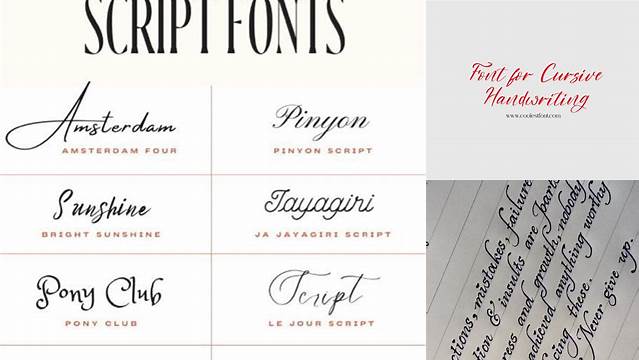
Best Cursive Fonts: Elegant Handwriting Styles
Are you looking for the best cursive handwriting fonts to add a touch of elegance and personality to your projects? Well, you've come to the right place! In this comprehensive guide, we'll explore a wide range of cursive fonts that mimic the beauty of human handwriting. Whether you're designing wedding invitations, creating logos, or simply want to add a personal touch to your documents, the right cursive font can make all the difference. Guys, let's dive into the world of cursive fonts and discover some amazing options!
What Makes a Great Cursive Handwriting Font?
Before we jump into specific font recommendations, let's talk about what makes a cursive font truly great. It's not just about looking pretty; a good cursive font needs to be legible, versatile, and evoke the desired feeling. When you're looking for the best cursive handwriting fonts, consider the following factors:
- Legibility: This is paramount. A beautiful font is useless if no one can read it! Look for fonts with clear letterforms and consistent spacing. Avoid fonts that are overly ornate or have too many flourishes, as these can be difficult to decipher.
- Flow and Rhythm: Cursive handwriting is characterized by its smooth, flowing strokes. The best fonts capture this rhythm, creating a sense of natural movement across the page. The connections between letters should be seamless and organic, not clunky or forced.
- Personality: Different cursive fonts have different personalities. Some are elegant and formal, perfect for wedding invitations or high-end branding. Others are playful and casual, ideal for children's books or informal correspondence. Consider the message you want to convey and choose a font that matches.
- Versatility: A versatile font can be used in a variety of contexts. Look for fonts that come in different weights (e.g., light, regular, bold) and styles (e.g., italic, condensed). This will give you more flexibility in your designs.
- Character Set: Does the font include all the characters you need, such as accented letters, punctuation marks, and symbols? A complete character set is essential for professional use.
Finding the perfect best cursive handwriting fonts involves balancing these factors. It’s about identifying a font that not only looks stunning but also effectively communicates your message while fitting your project's aesthetic and practical requirements. Remember, the goal is to enhance readability and add a personal touch without sacrificing clarity.
Top Cursive Handwriting Fonts
Okay, guys, let's get to the fun part – exploring some fantastic cursive handwriting fonts! I've curated a list of some of the best cursive handwriting fonts across different styles and use cases. Here are some top contenders, with details on what makes each one special:
1. Pacifico
Pacifico is a friendly and approachable cursive font that's perfect for adding a touch of warmth to your designs. Designed by Vernon Adams, Pacifico is inspired by the 1950s American surf culture, giving it a retro yet modern feel. It's highly legible and works well in a variety of applications, from logos and headlines to body text. Pacifico features rounded letterforms and a consistent slant, creating a sense of movement and rhythm. This makes it a best cursive handwriting fonts choice for projects that need a casual, inviting vibe. This font has a strong personality that resonates well with audiences seeking a blend of nostalgia and contemporary design.
The rounded shapes and consistent flow make Pacifico exceptionally readable, even in smaller sizes. This legibility makes it a versatile choice for various media, including web design, print materials, and social media graphics. Furthermore, Pacifico’s distinct style helps brands create a memorable visual identity. Its character set includes a full range of glyphs, ensuring compatibility across different languages and design platforms. Whether you're working on a blog header, a promotional poster, or a website banner, Pacifico can elevate your design with its charming and approachable aesthetics.
2. Brush Script MT
Brush Script MT is a classic cursive font that's been around for decades, and for good reason! It's a bold and expressive font that mimics the look of brushstrokes, giving it a hand-lettered feel. Designed by Edwin W. Shaar in 1942, Brush Script MT is characterized by its dramatic strokes and swashes. It’s an excellent choice for headlines, posters, and anything that needs a touch of vintage flair. Brush Script MT remains a top pick among best cursive handwriting fonts due to its timeless appeal and dynamic presence. Its unique character shapes and bold strokes instantly capture attention, making it perfect for titles and headings that need to stand out.
The font’s expressive nature makes it particularly effective in designs where a personal touch is desired. It conveys a sense of authenticity and craftsmanship, ideal for branding materials or invitations. However, due to its bold nature, Brush Script MT is best used sparingly to avoid overwhelming the design. When paired thoughtfully with simpler fonts, it can create a striking visual contrast and add a sophisticated edge. This classic typeface continues to prove its worth as a versatile and reliable option for designers looking to infuse their work with character and style.
So there you have it, guys! A comprehensive guide to the best cursive handwriting fonts. We've explored what makes a great cursive font, highlighted some top contenders, and offered tips on choosing the right font for your project. Remember, the perfect cursive font can add a touch of elegance, personality, and warmth to your designs. Whether you're creating wedding invitations, designing a logo, or simply want to add a personal touch to your documents, the right cursive font can make all the difference. Happy font hunting!